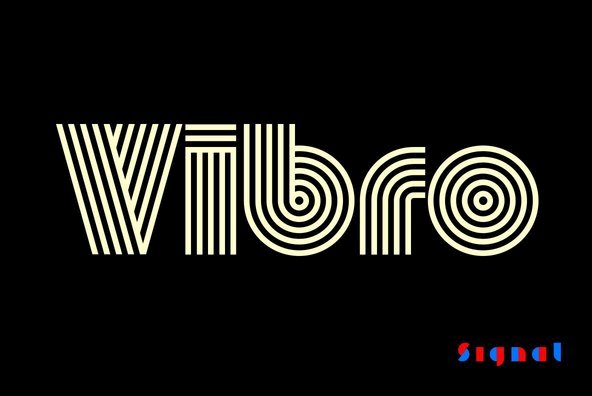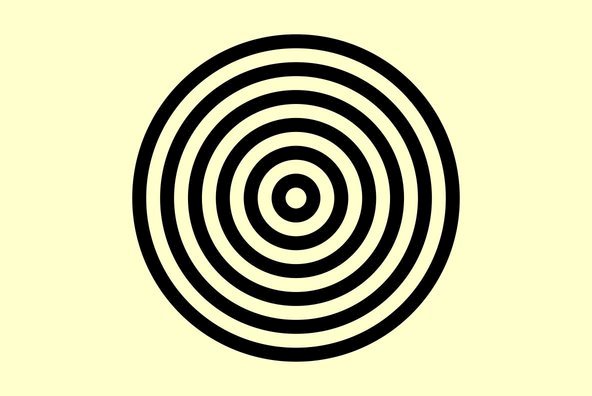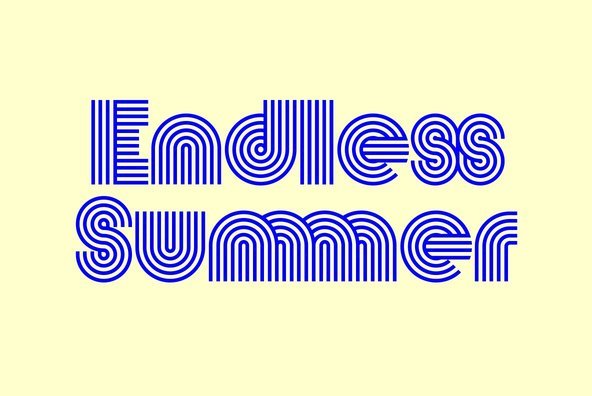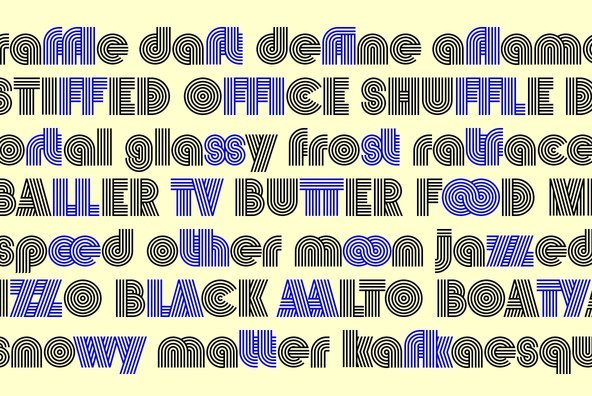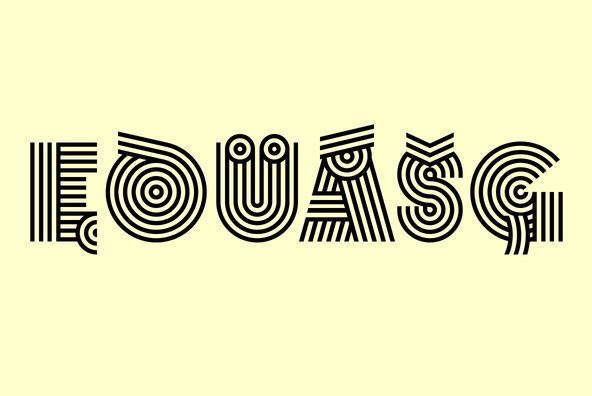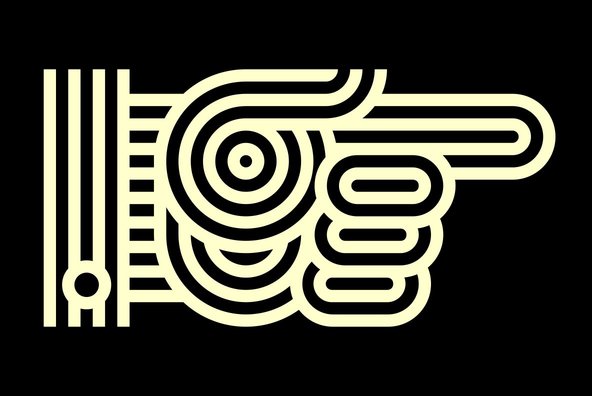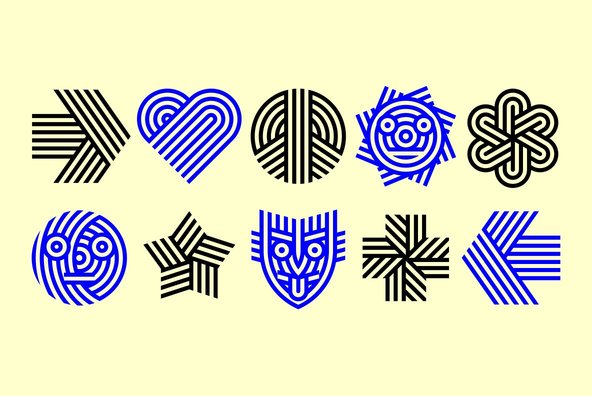
Roll over, Lance Wyman, and tell Bridget Riley the news. Designed by an old hippy for maximum dazzle, Vibro is an ice cream headache of a typeface which exploits the principles of chromatic vibration to send streams of high voltage through the viewer’s visual cortex. The exigencies of pattern-making have been permitted to trump those of classical construction. In the interest of greater stripiness, counters have been dispensed with. A full range of diacritics has been mortised into the bodies of the letters, enabling Vibro to trample basic standards of legibility in over 130 languages.